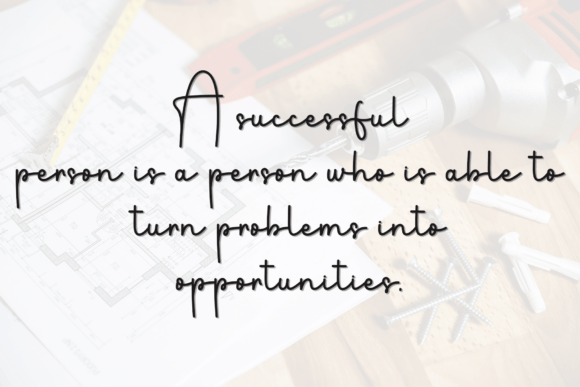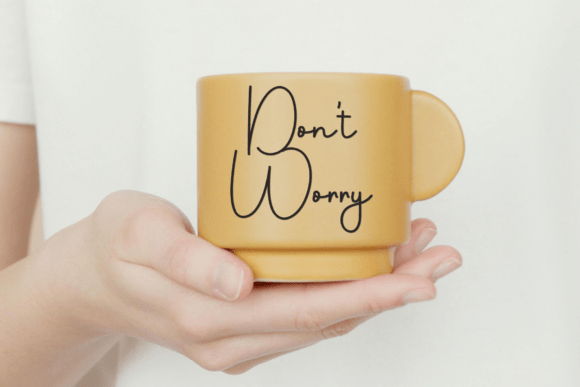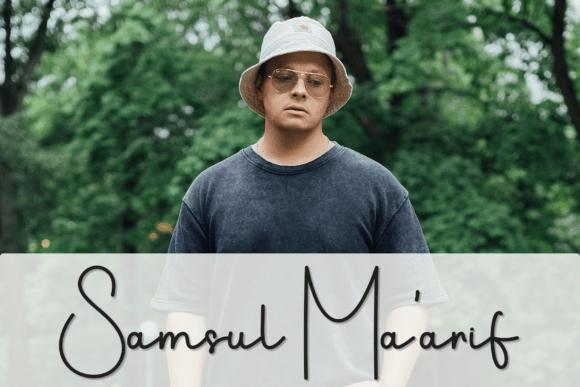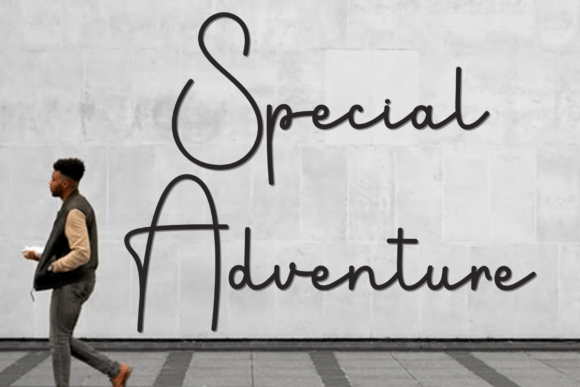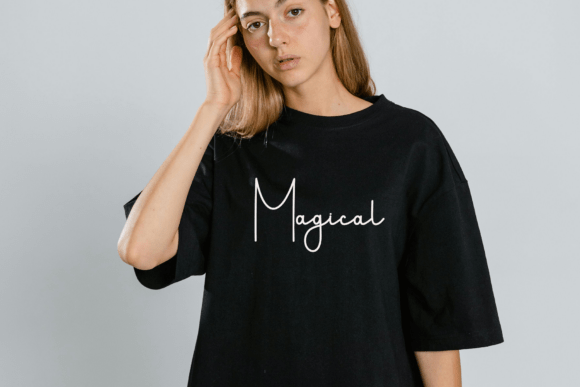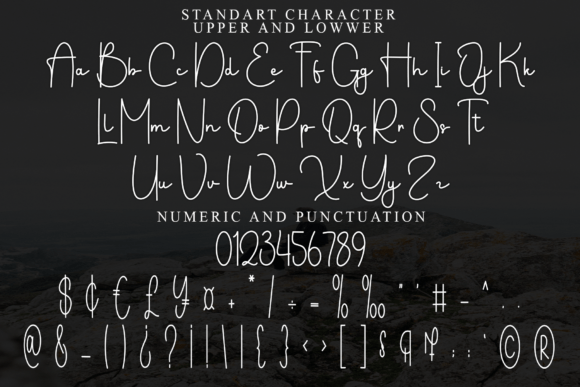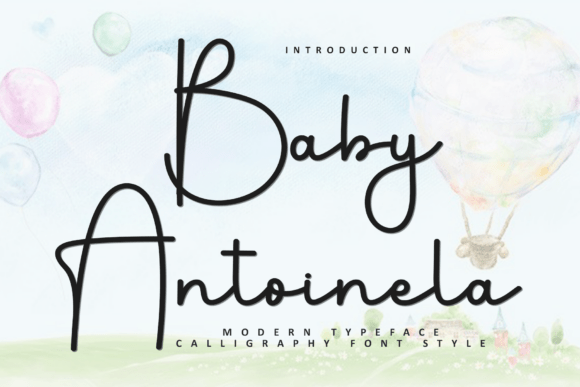
Baby Antoinela Font: The Perfect Holiday Companion for Designers and Crafters
The holiday season is upon us, and with it comes the need for festive and merry designs that capture the spirit of the season. For designers and crafters looking to add a touch of enchantment to their projects, the Baby Antoinela Font is the perfect companion. This beautiful typeface is designed to bring a cheerful and nostalgic ambiance to your words, making it ideal for greeting cards, gift tags, and holiday-themed projects.
A Festive and Whimsical Typeface
Baby Antoinela Font is a decorative typeface that embodies the magic of the holiday season. Its whimsical flair and decorative elements make it a standout from more traditional fonts, adding a touch of personality to any design. Whether you’re creating holiday cards, gift tags, or festive posters, this font is sure to bring a smile to the faces of those who see your designs.
So, what makes Baby Antoinela Font so well-suited for holiday projects? For starters, its festive and cheerful vibe is perfect for capturing the spirit of the season. Whether you’re designing for Christmas, Hanukkah, or any other winter holiday, this font is sure to get your designs in the right mood. Plus, its decorative elements and whimsical flair make it a great choice for adding a touch of personality to your designs.
Here are just a few ideas for using Baby Antoinela Font in your holiday projects:
• Greeting cards: Create festive and personalized greeting cards for friends and family.
• Gift tags: Add a touch of magic to your gifts with custom gift tags featuring Baby Antoinela Font.
• Holiday posters: Create eye-catching posters for holiday events, sales, or promotions.
• Social media graphics: Add a touch of holiday cheer to your social media graphics and posts.
Why Choose Baby Antoinela Font?
So, why should you choose Baby Antoinela Font for your holiday designs? Here are just a few reasons:
• Festive and cheerful vibe: Perfect for capturing the spirit of the holiday season.
• Decorative elements and whimsical flair: Adds a touch of personality to your designs.
• Perfect for designers and crafters: Great for creating holiday cards, gift tags, and other projects.
Get Ready to Shine with Baby Antoinela Font
In conclusion, Baby Antoinela Font is the perfect companion for designers and crafters looking to add a touch of enchantment to their holiday projects. With its festive and cheerful vibe, decorative elements, and whimsical flair, this font is sure to capture the spirit of the season. Whether you’re creating holiday cards, gift tags, or festive posters, Baby Antoinela Font is the perfect choice. So go ahead, get creative, and let the magic of this beautiful font shine through in your designs!